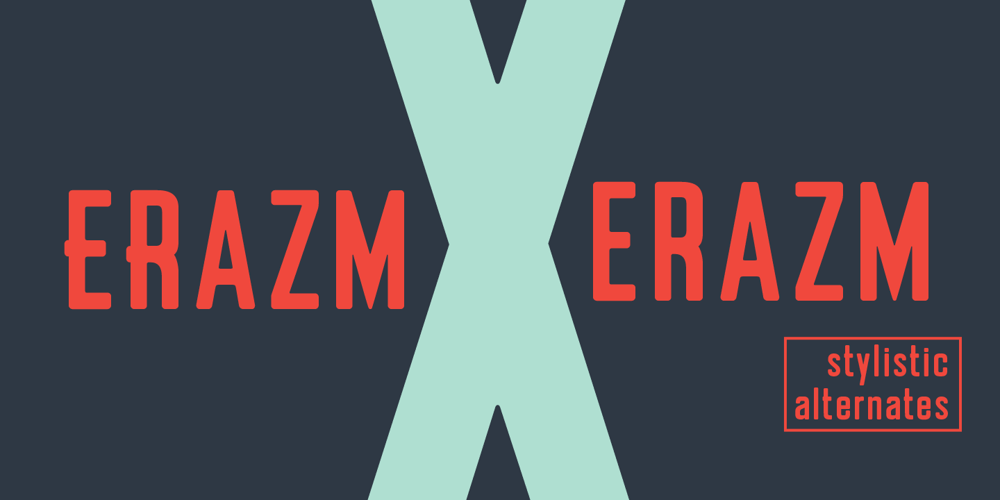
Erazm Font Family was designed by published by Justyna Sokolowska. Erazm contains 4 styles and family package options. To design the font Erazm, I was inspired by books from the 30’s from Poland. From a few letters I created an entire typeface – lower and uppercase characters.